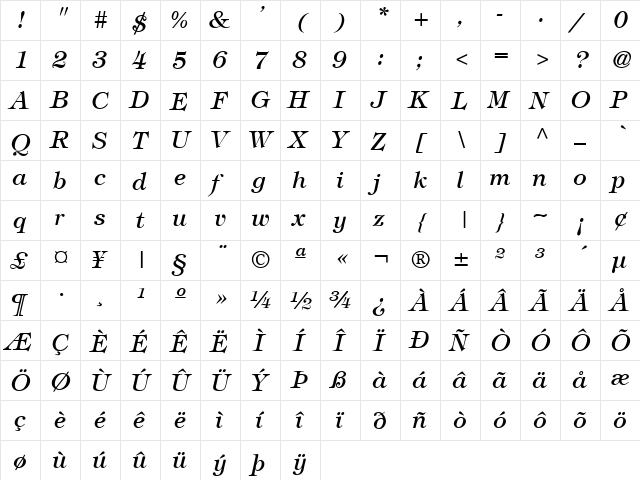
Timpani Italic
Design Context for Timpani Typeface
Timpani takes a measured approach to typography — its balanced proportions and neutral character make it a reliable workhorse for both digital and print work. The dynamic lean of this cut emphasises speed and emphasis in any layout.
Pro Tip: Use Timpani for emphasis, pull quotes, and subheadings where its slanted energy can add rhythm to the layout.